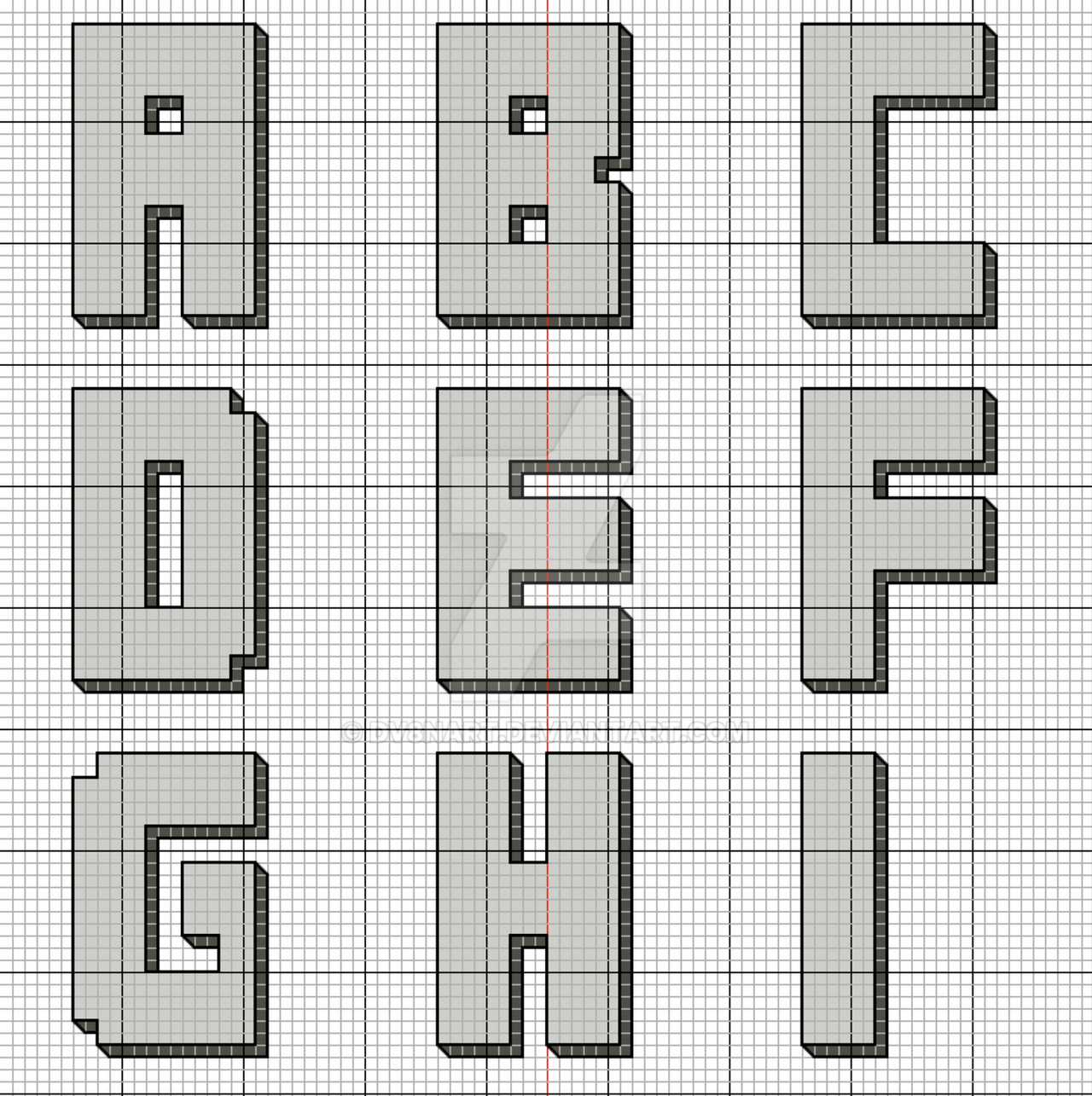
⚔️ Forget about cursive fonts. Finally, here is a font that is perfect for cross stitch! Download Claymore: A Minecraft Inspired Cross Stitch Font PDF pattern instantly!
Letters are approx. 25 stitches high, making it perfect for stitching door name tags, patches, or gaming quotes for the little (or big) gamer in your life. ⚔️
🏡 Size: Approx. 25 stitches high (1 letter) x 16 to 22 stitches wide (depends on letter)
🪓 Stitches Required: Full cross stitches, half stitches
🦜 Colors: 3 colors - Can be easily switched out with any colors you'd like!
⛏️ A more challenging design, but also great for beginners!